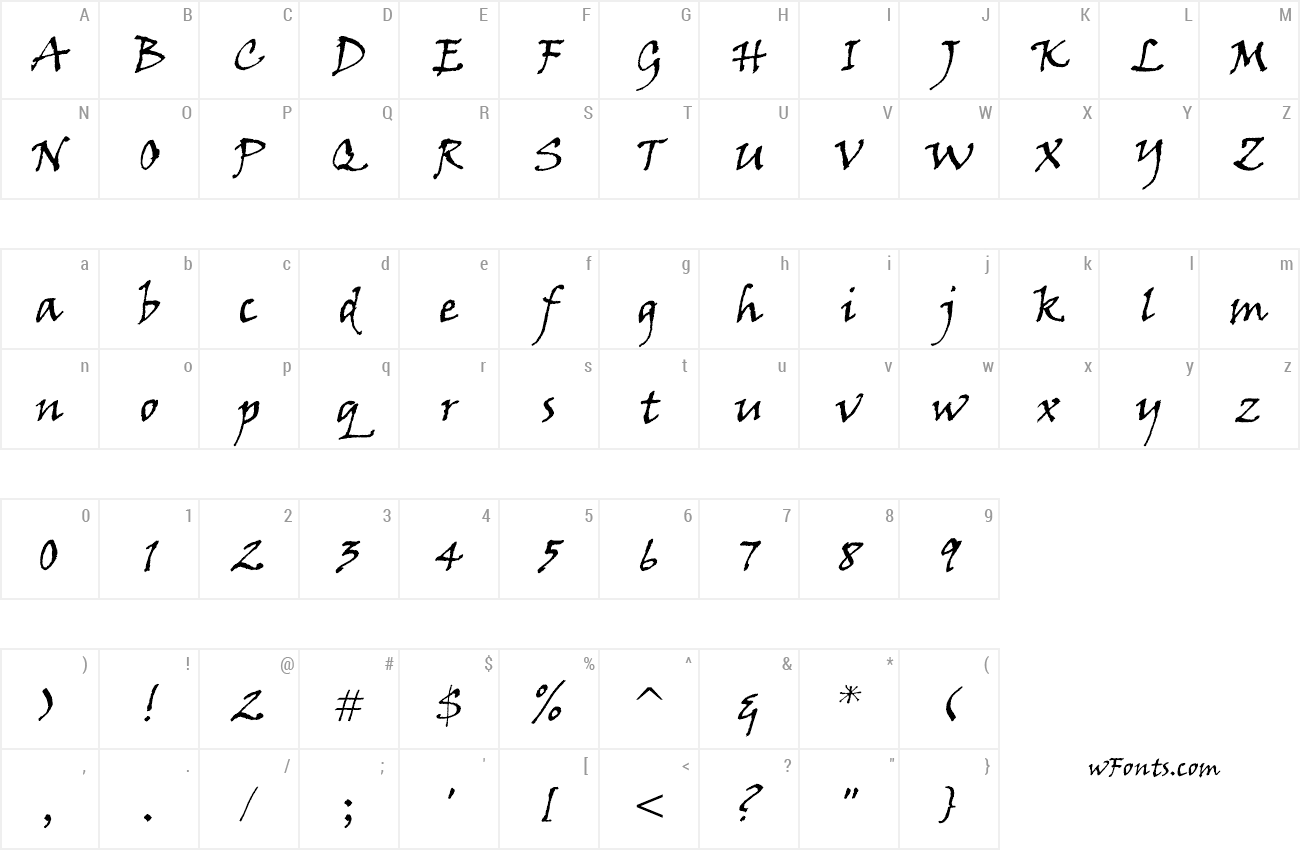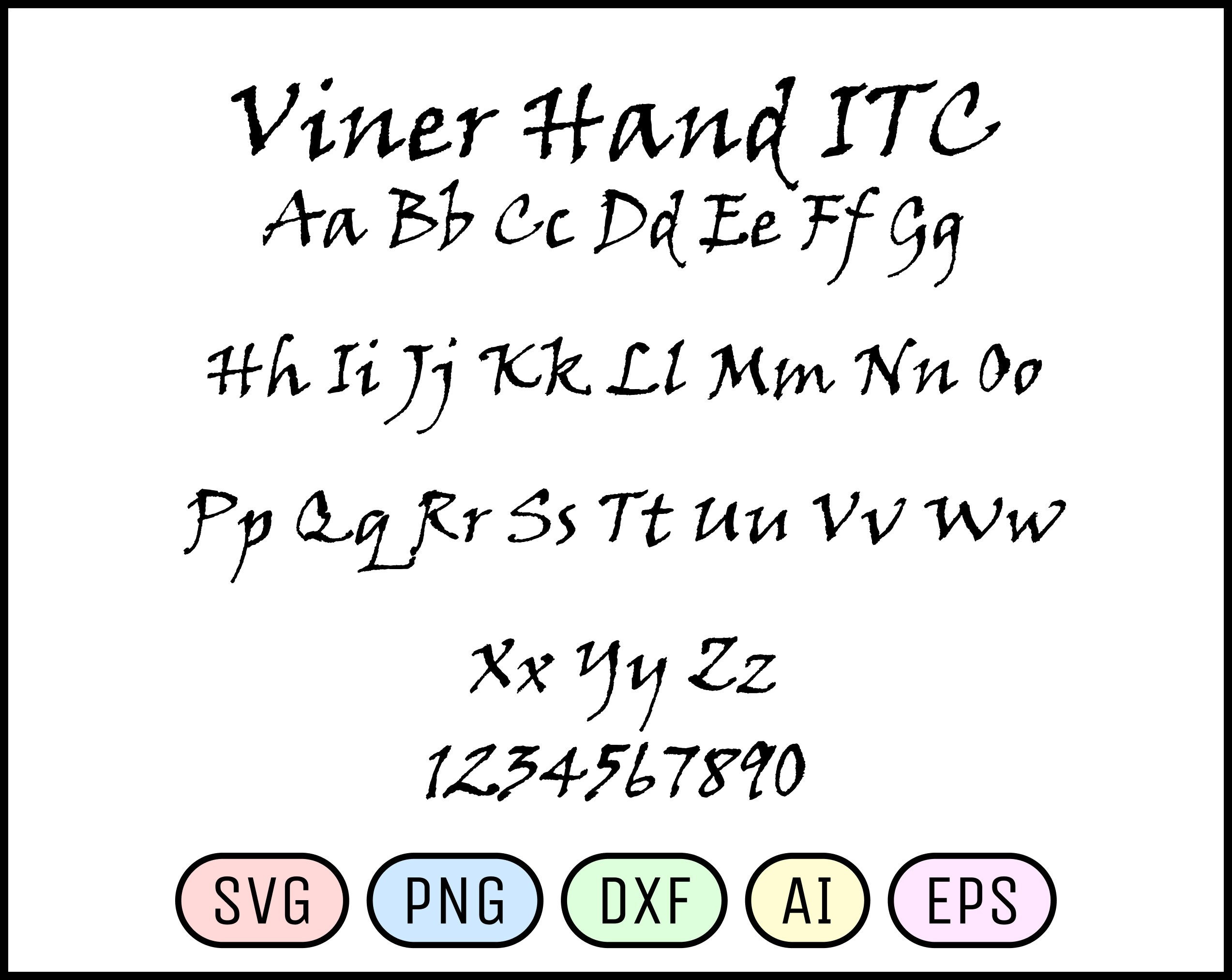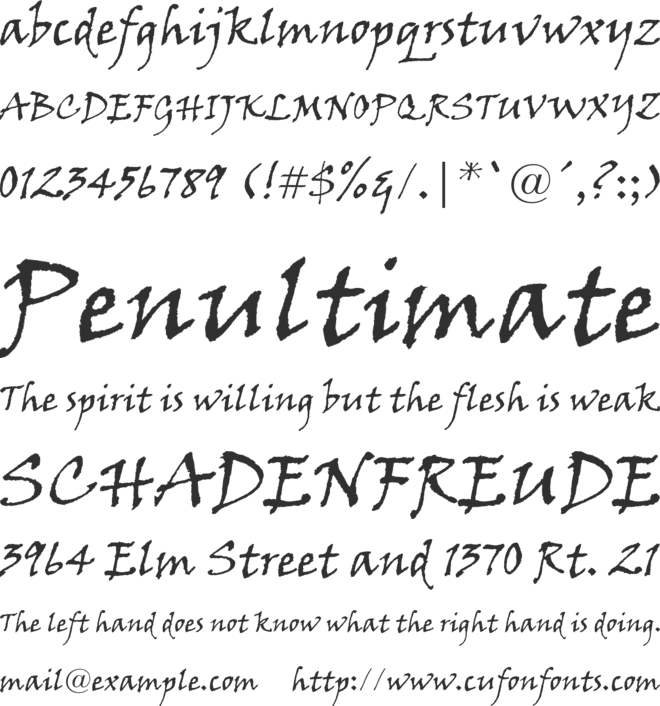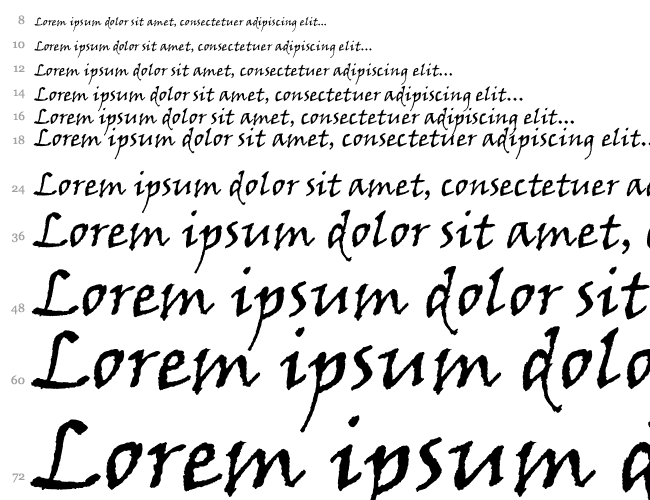
Viner Hand Font
Viner Hand Font - Web itc viner hand is a font family designed by john viner and published by itc, featuring 1 style of informal script.